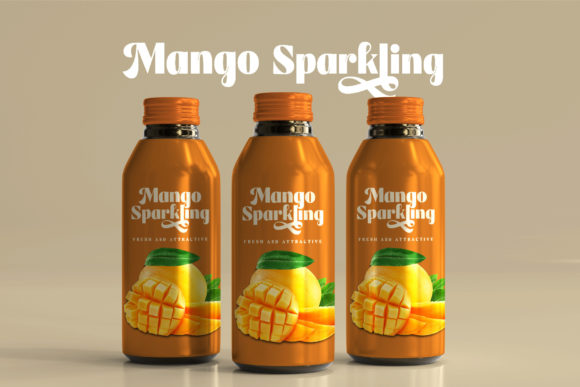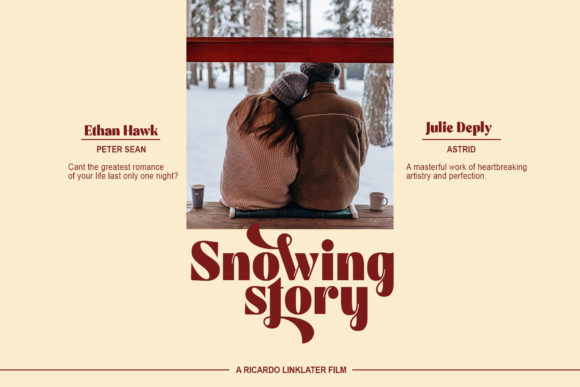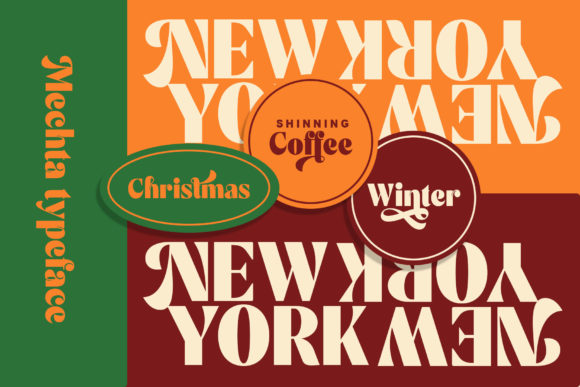
Introduction to Mechta Font
Mechta is a trendy and bold display font, that’s great for delivering any message with confidence, authenticity and charm.
It will elevate a wide range of crafting ideas, from cards, to branding, labels and much more .
Key Features of Mechta Font